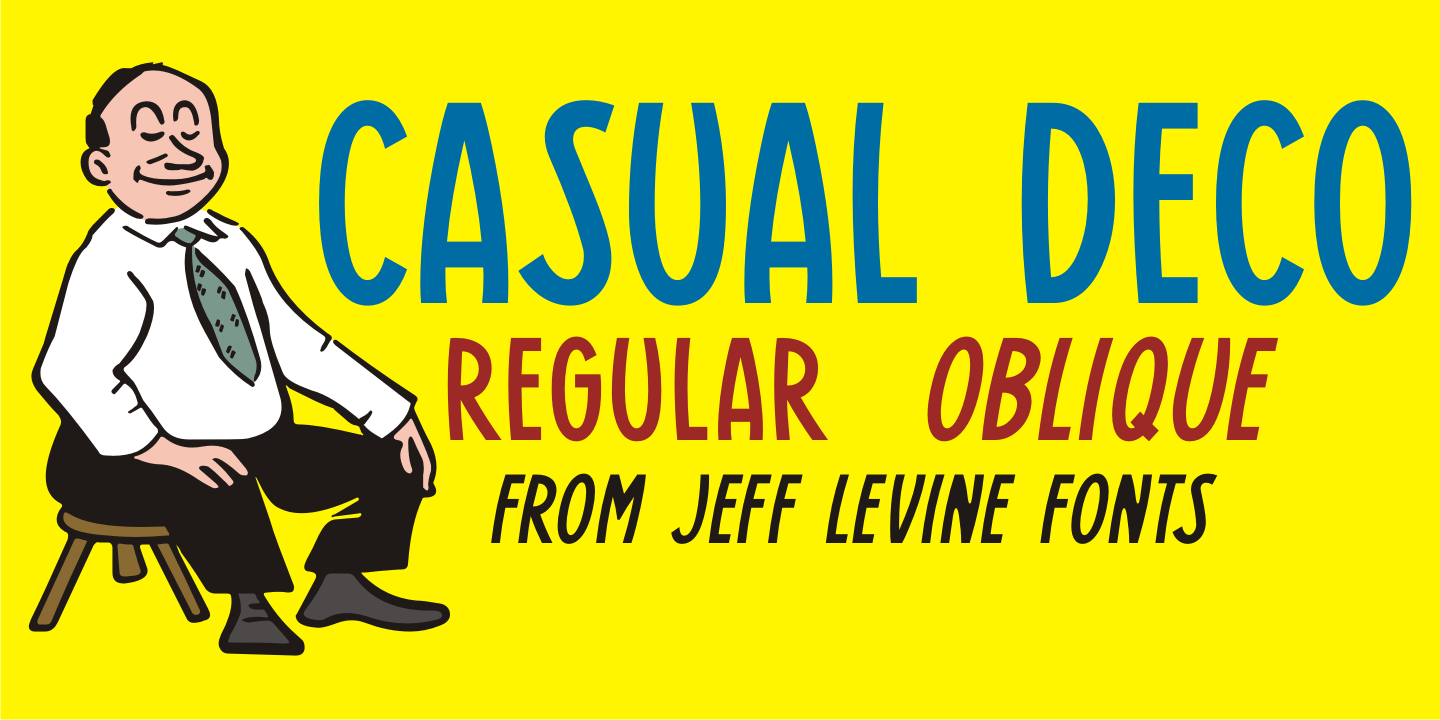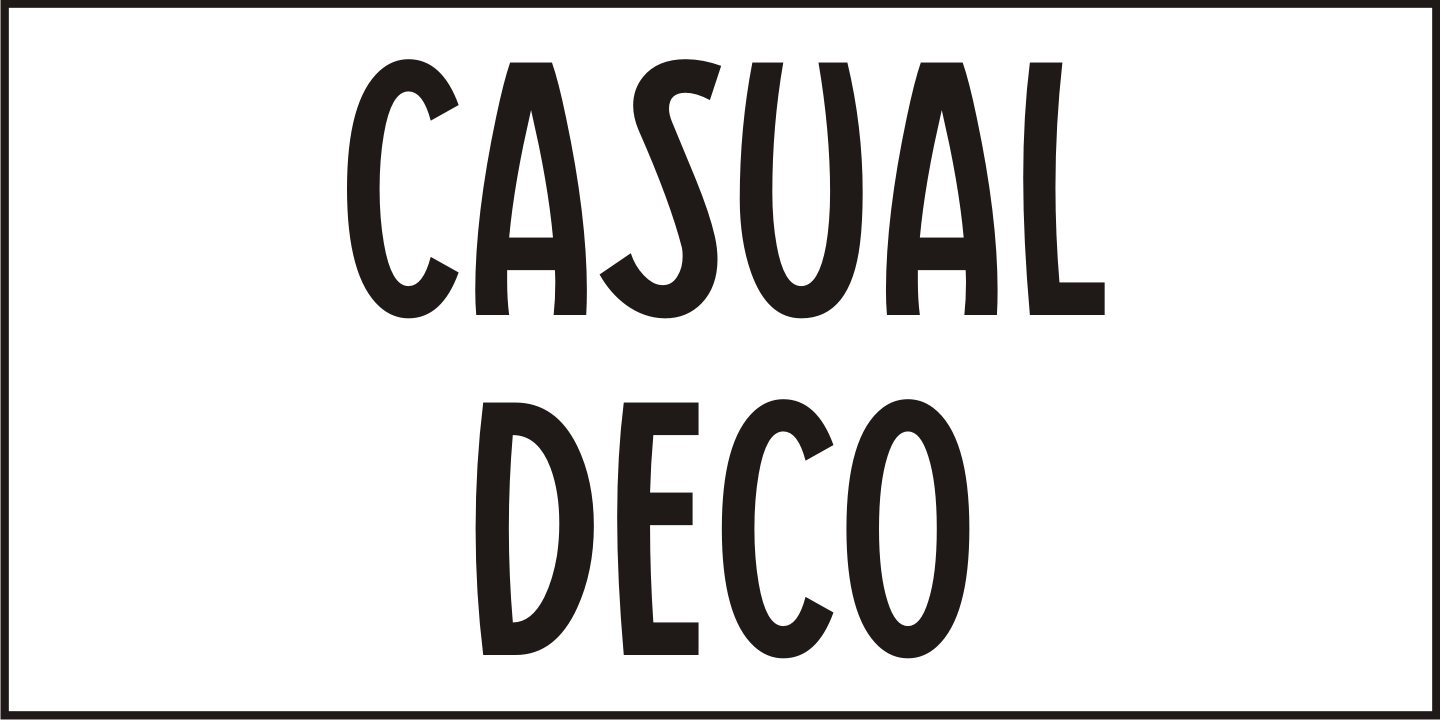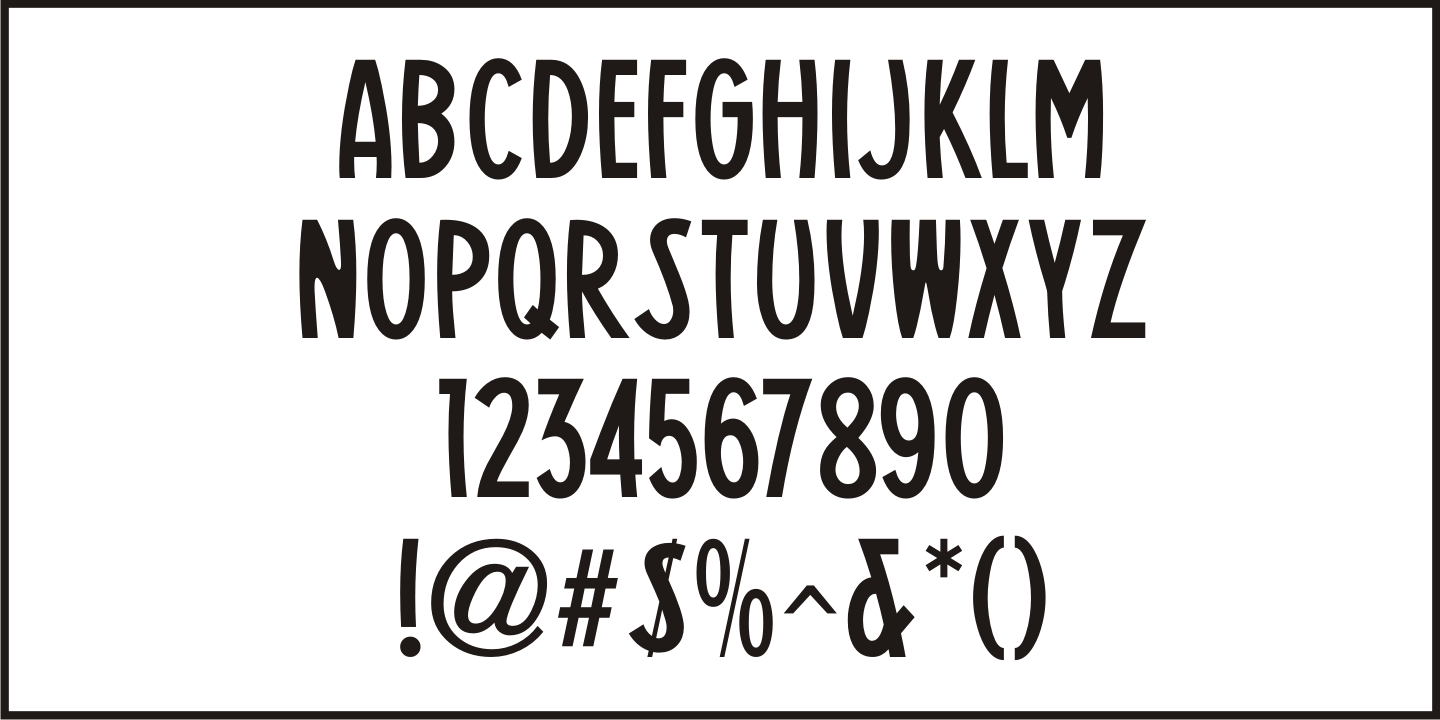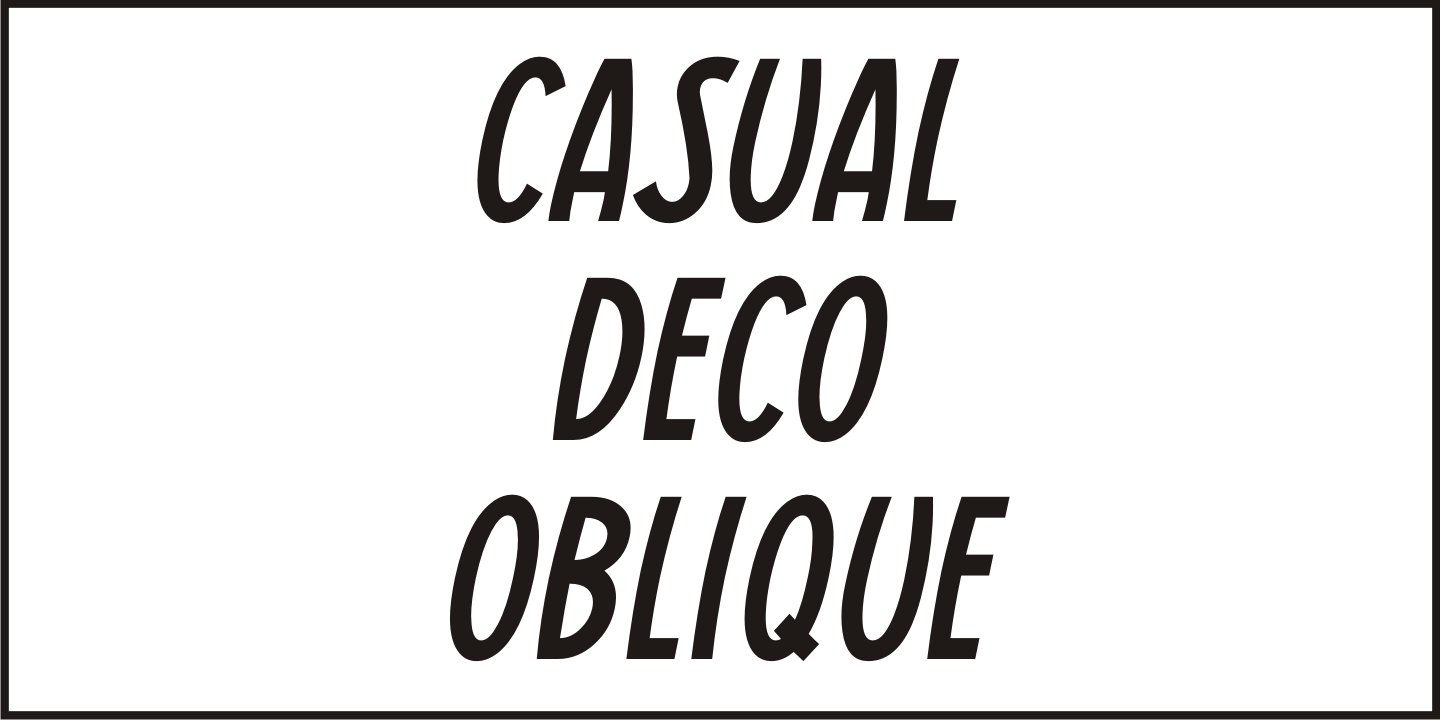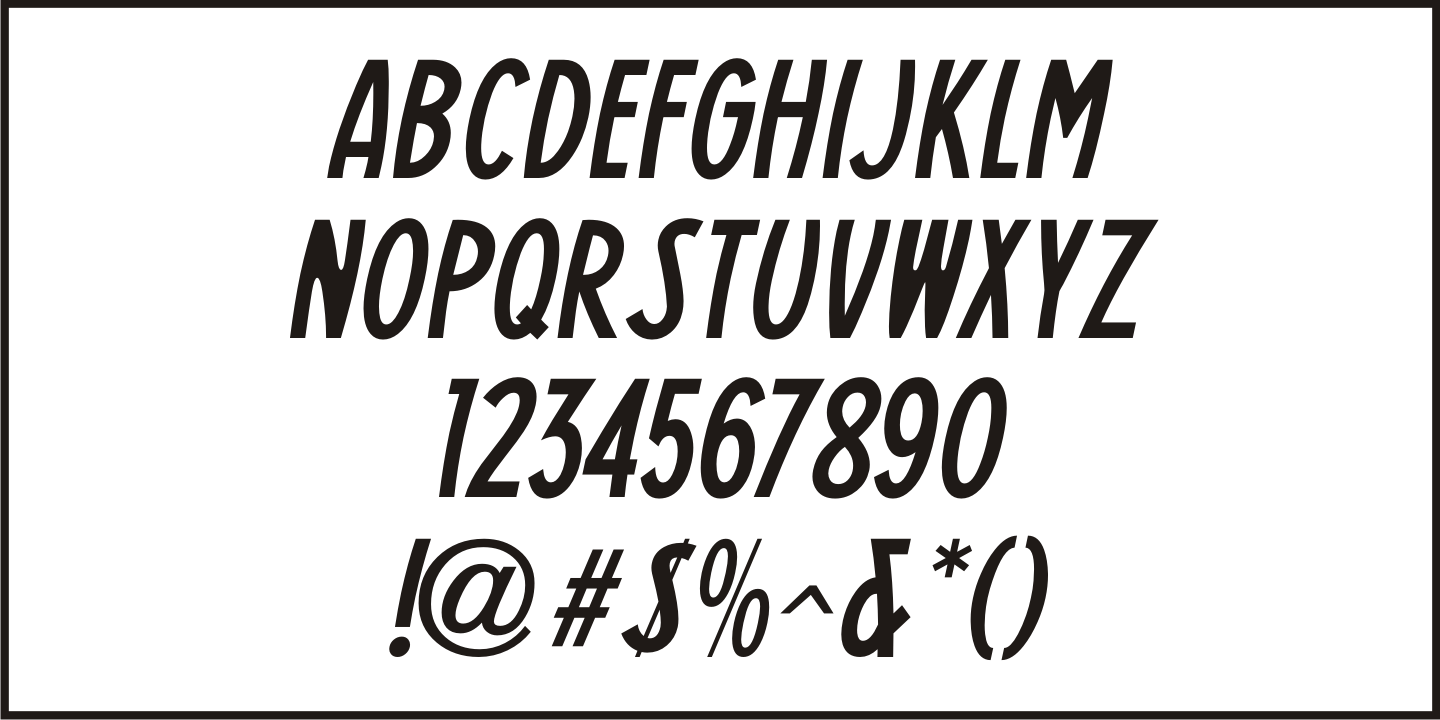
Casual Deco
The hand lettered sans serif title on the1931 sheet music for '(Potatoes are Cheaper-Tomatoes are Cheaper) Now's the Time to Fall in Love” presented another opportunity to create a typeface from the wealth of unusual alphabets found on the covers of vintage and antique song sheets.
However, it seems that even as late as the 1930s, song writers had the urge to pen long-worded titles for their musical compositions. This thirteen word verbal excursion became the model for Casual Deco JNL, which is available in both regular and oblique versions.